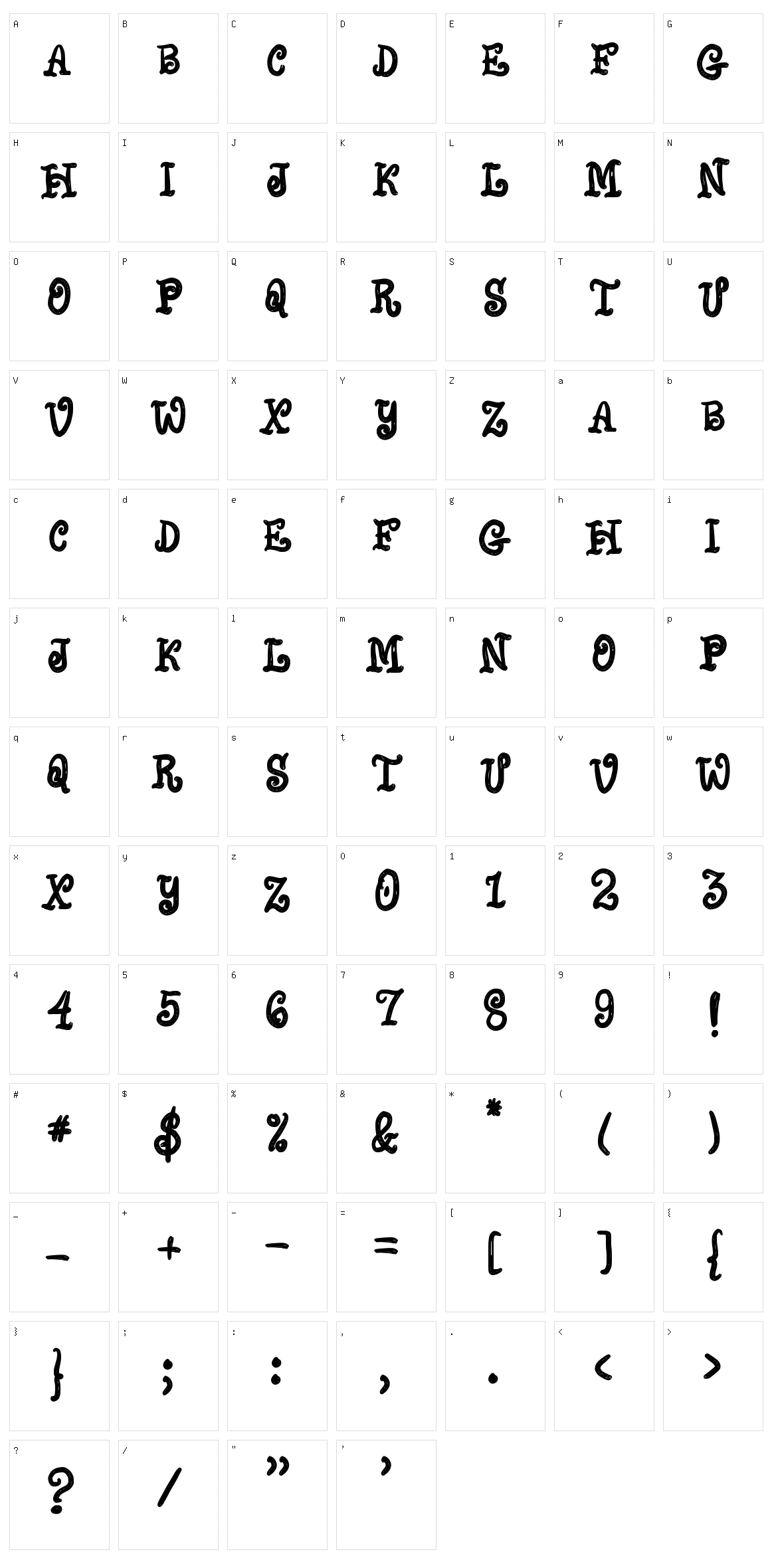
The free font Black Hosten is carefully designed by Kotak Kuning Studio, showcasing a thoughtful balance of creativity and usability and falls under the Halloween font style. When you download the ZIP file, it contains only 62.97 KB of font files, making it lightweight and quick to download. Please review the license details below to understand permitted usage and distribution rights. If license information is not available, we recommend using this font for personal projects only or contacting the author directly for commercial usage permissions.